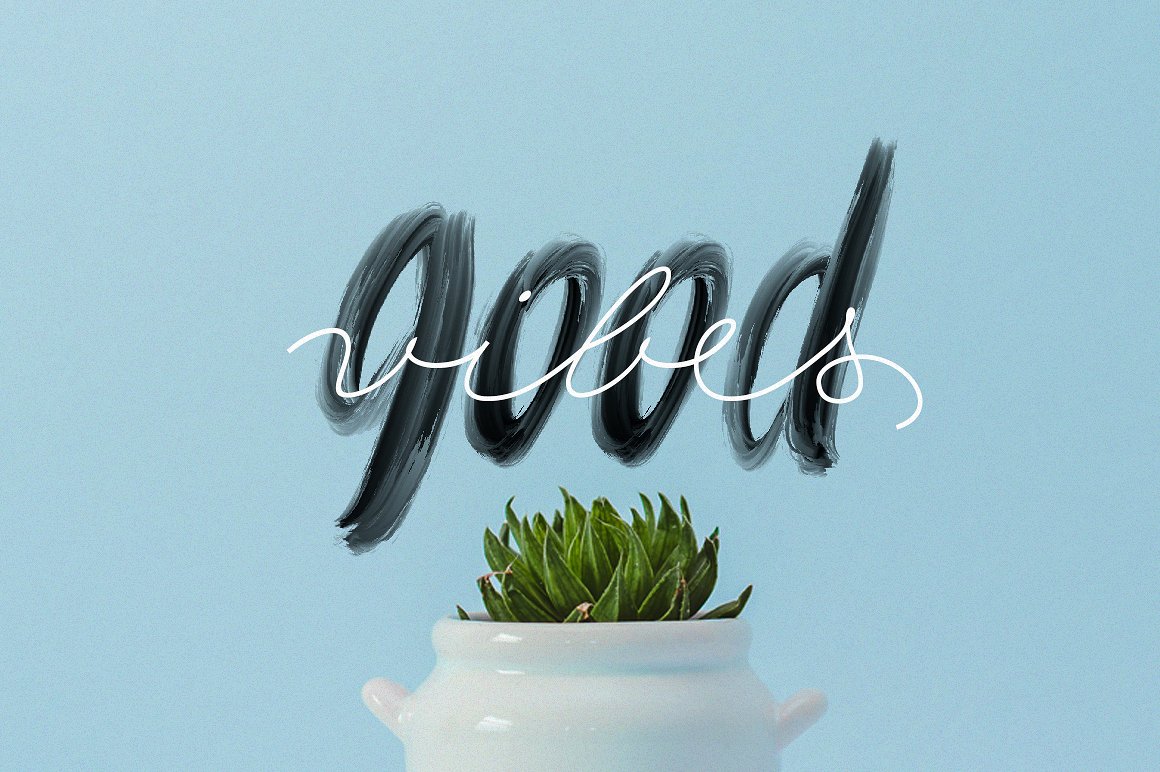
Amélie Camille Font
About Amélie Camille Font
Amélie Camille is a stunning, neat font.
Being a legible font with a very personal touch, the Amélie Camille font is suitable for a large range of projects.